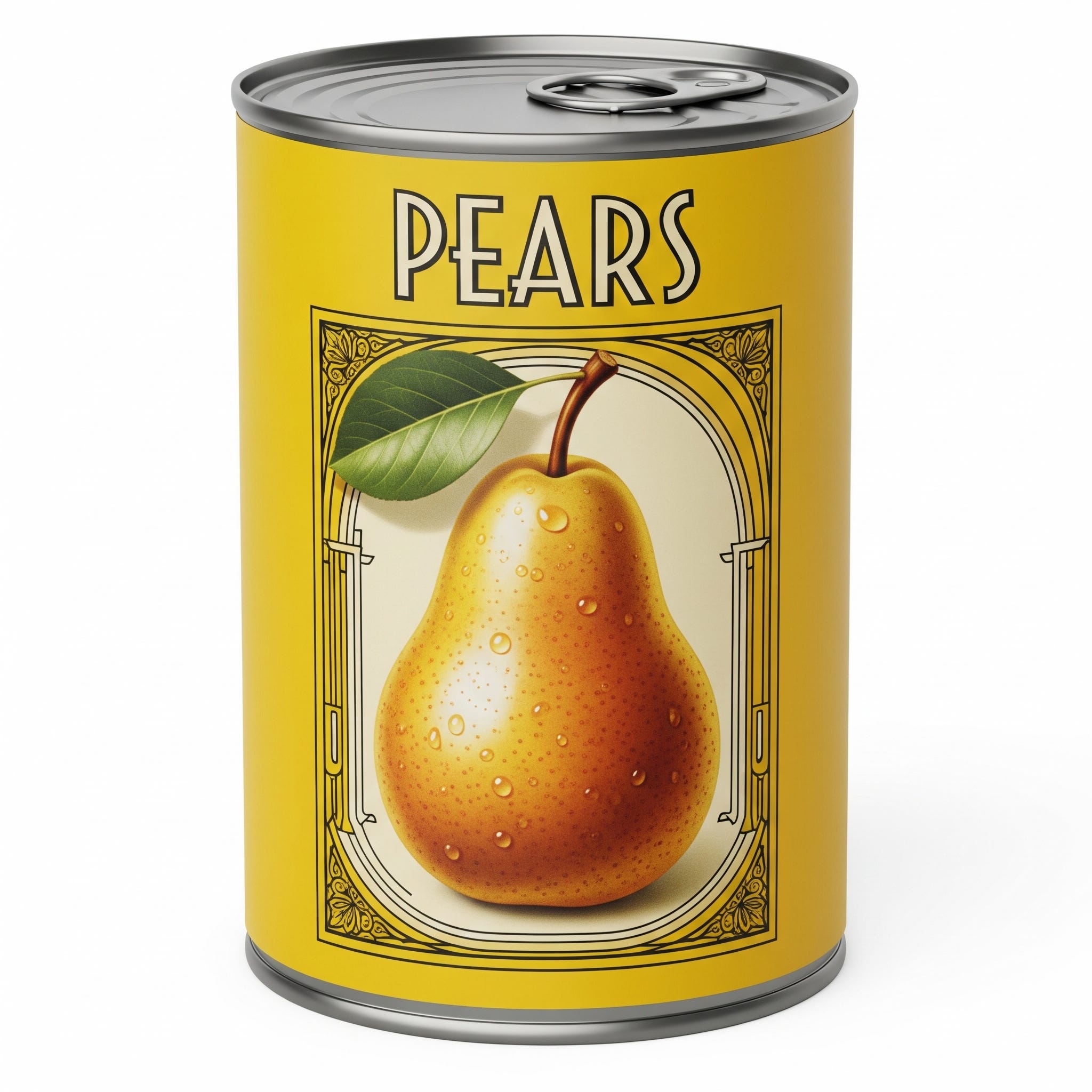
If I Had to Use Five Fonts for the Rest of My Life, These Would Be Them
Also a Few Thoughts on What AI is Lacking
(Before we get started, I’m going to use the word “font” here instead of “typeface”. I know it’s a touchy subject in the design community, but I want to LIVE.)
Last night over dinner with some old co-workers, we discussed the ever-evolving topic of AI. To be honest, I don’t pay too much attention to the image creation powers of AI. Perhaps I should, so I stay with the times, but from what I’ve seen come out of it in terms of true graphic design, I don’t find a lot of use for it. Beyond my personal issues with creating art using AI, what use do I have with a flattened image that I can’t edit if I wanted to? So today I wanted to see how AI handles fonts, particularly if its given a prompt with a specific time era.
Here’s what I typed in:
Here’s what it generated:
This AI-generated “font headline” referenced the font Costa Mala, which was created in 2020. And there lies my whole frustration with AI design work. It’s not personal. It doesn’t have the intelligence or creativity to realize that if someone wants a can design that looks like the 1930s, then the fonts used should be from the 1930s.
Enough of my thoughts on AI. We all have them, and I’m sure we’re all having similar conversations on how to navigate this new world.
Back to real-life fonts…ahh.
The history of fonts dates back to the Song Dynasty in China, circa 1039, when a person named Bi Sheng created movable type using porcelain. Fast forward through the decades, and those pieces of type then became wood… then metal (tin type)… and now we have keyboards at our fingertips to output nearly any style of fonts we can dream up. (I just really breezed through that history. This site does a fascinating take on the history!)
With the sentiment of wanting the fonts we all use to be purposeful and have meaning behind them for our projects, I thought I’d share the 5 fonts I’d use for the rest of my life because I think they’re that good.